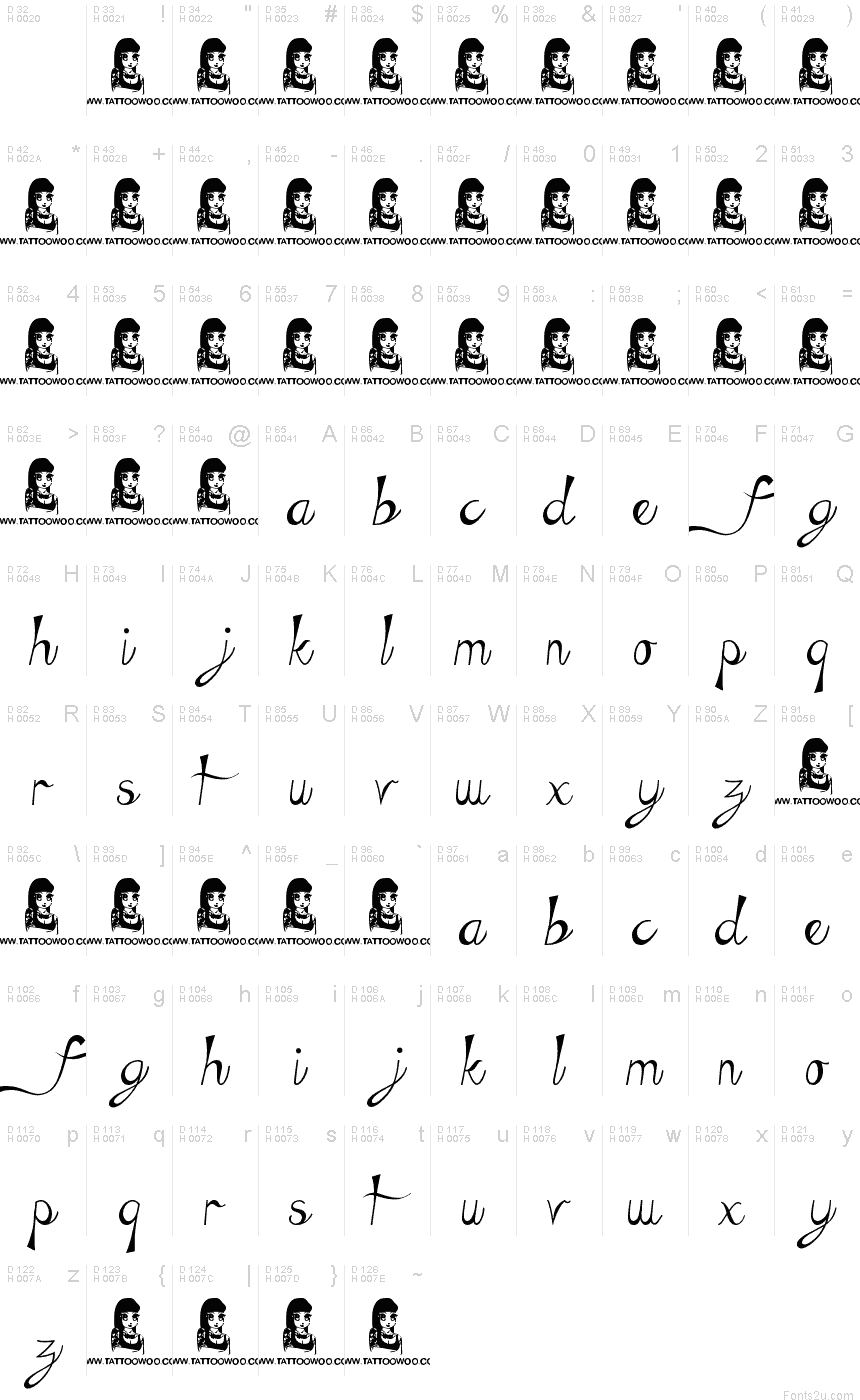
The Green Life by TattooWoo is a free calligraphic script with tall, slender letters and pronounced changes in stroke width. Long entry strokes, looping joins, and broad flourishes recall formal penmanship. The narrow forms keep it lively.
Botanical illustration and fine-line tattoo artwork echo its curling strokes, suiting beauty packaging, wedding invitations, and fashion editorials. For boutique brands, the extended flourishes can become part of a label or monogram.